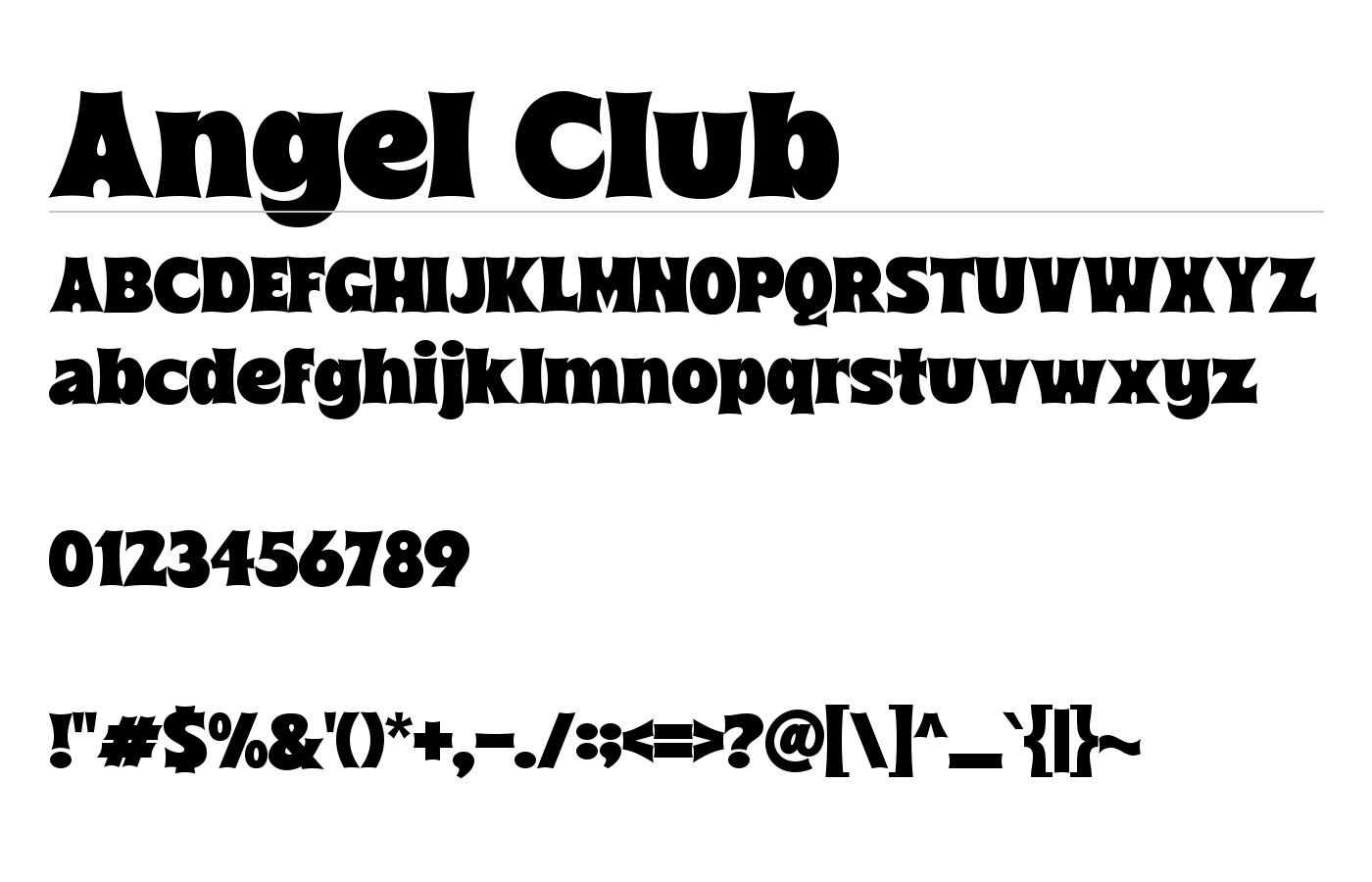
Angel Club is a bold, playful display font with a quirky, slightly retro feel. Its chunky letterforms feature exaggerated curves and sharp, pointed serifs that give it a lively, energetic personality perfect for eye-catching headlines, logos, and fun branding projects. This font works well where a strong, unique vibe is needed to convey creativity and youthful enthusiasm.
Angel Club Font
About Angel Club Font
| Font family | Angel Club Font |
| Designer | Burhan afif |